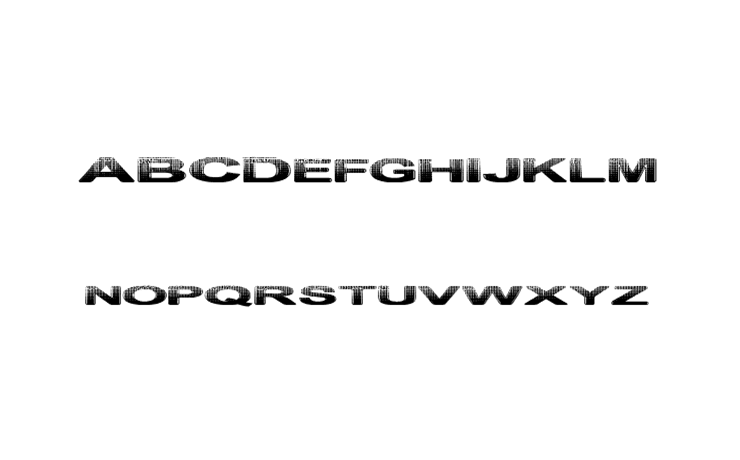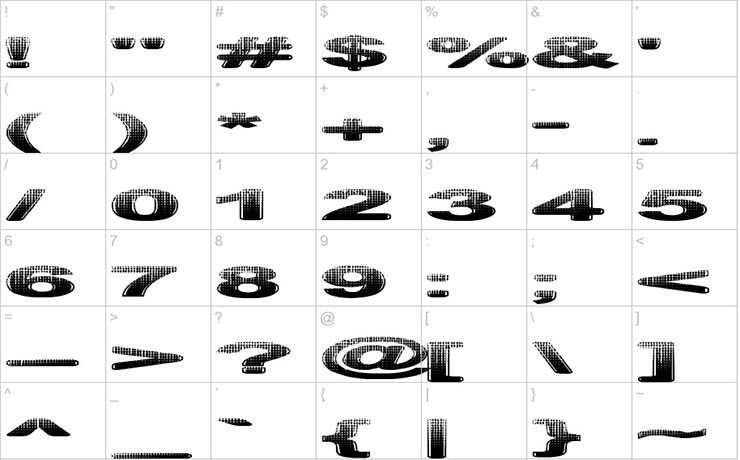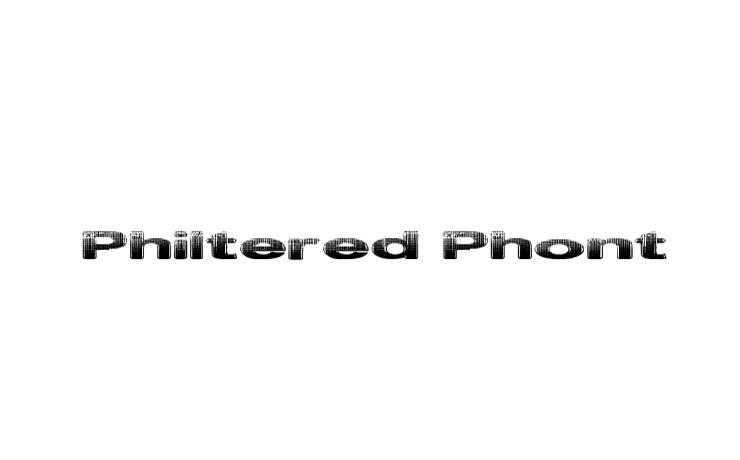
If you’re looking for fancy decorative fonts as well, this one may appeal. Philtered Phone Font comes with an attractive combination that makes for a lighthearted and fun font.
This display font is called filter typeface that was designed and uploaded by GemFonts / Typotheticals.
When you look at its structure then look for bold and thick strokes by adding depth to it. Plus, you’ll be getting the effect of the piece inside each letter. It helps to show its extra beauty.
The character design of this font can be easily adjusted for large screens. This type is the best choice for decorative design purposes. The characters in this font style have a unique look.
Font Name: | Philtered Phont Font Family |
Style: | Fancy, Decorative, Typeface |
Font Designer: | GemFonts / Typotheticals |
Check out the look of this font that is perfect for decorative texture.
With this unique font help, You can easily create decorative designs, book covers, unique emblems, printing on cards, special event cards, movie posters, as well as other awesome places as well.